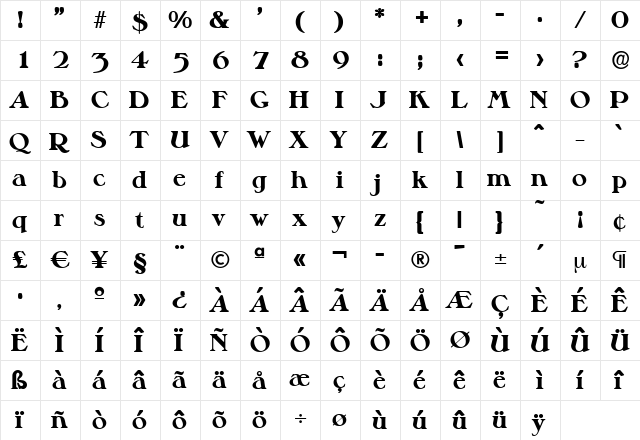
HenryBecker-ExtraBold Regular
Design Context for HenryBecker-ExtraBold Typeface
HenryBecker-ExtraBold takes a measured approach to typography — its balanced proportions and neutral character make it a reliable workhorse for both digital and print work. The heavy weight commands attention and anchors typographic hierarchies.